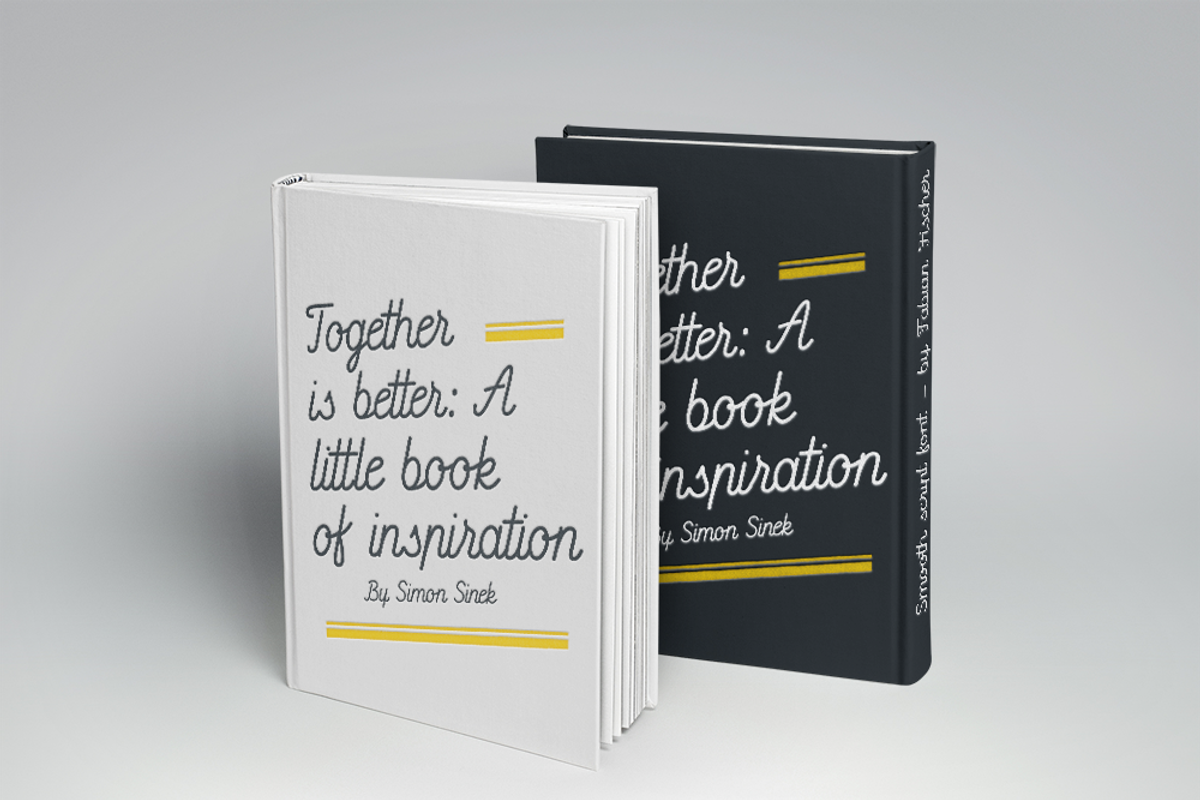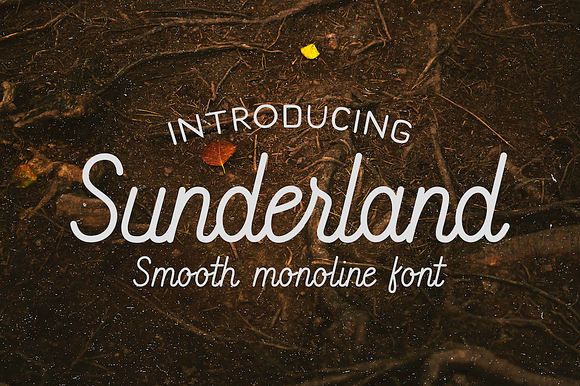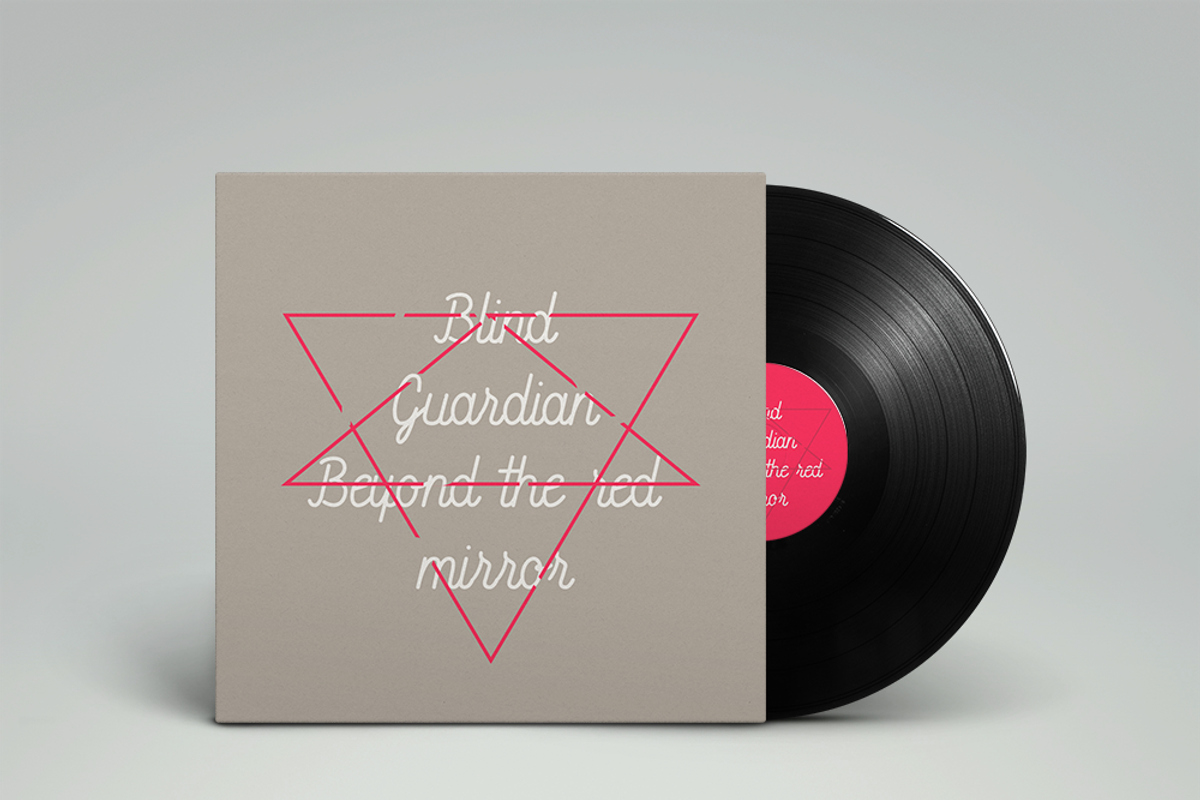
Sunderland - Smooth script font
Sunderland is a classic monoline cursive script font. This typeface includes all uppercase and lowercase letters. It works great for both modern and vintage style work.
Use Sunderland script in a range of items like packaging, posters, logotypes, branding, book covers, magazines, wedding stationery and much more.
- This typeface includes all uppercase and lowercase letters.
Sunderland - Smooth script font by Studio FabianFischer fits naturally into Branding, posters, packaging, typography.